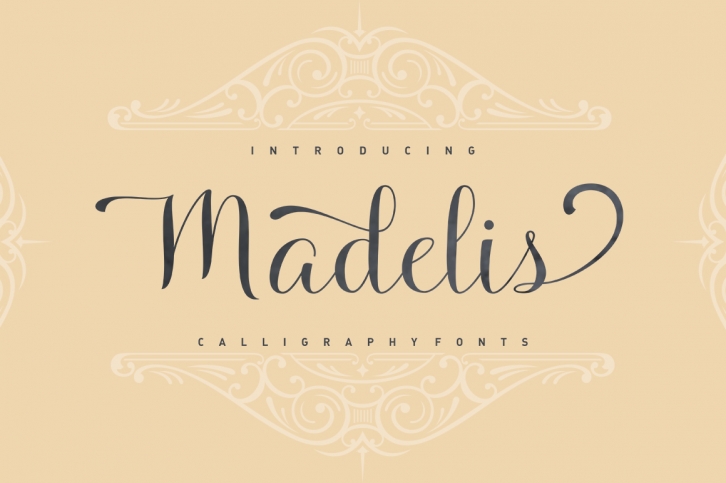
Madelis Script is a beautiful font that was designed by Stripes Studio. It's a great choice for designers and creatives who need such a font. It was released on March 11, 2019 and the file size is 17.48 MB. Madelis Script may give a more youthful, expressive and casual look to your project. It is a very beautiful, refined, elegant, and high-quality font.